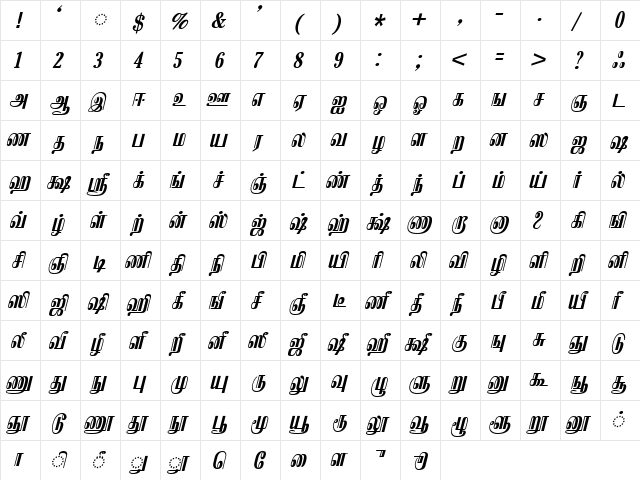
IdsTamil_TG_6_ Bold_Italic Font Preview
Design Context for IdsTamil_TG_6_ Typeface
IdsTamil_TG_6_ is a composed and adaptable typeface that performs quietly and consistently across a wide range of design contexts. Its italic angle brings a sense of urgency and motion to the letterforms. The heavy weight commands attention and anchors typographic hierarchies.